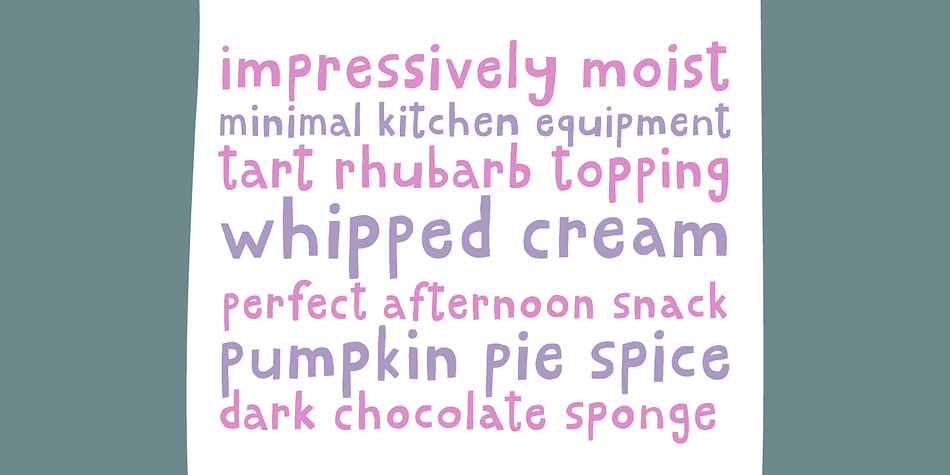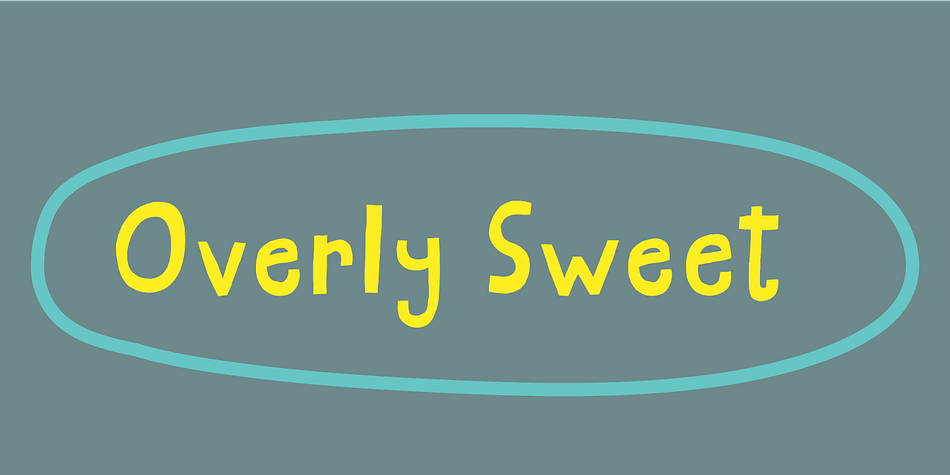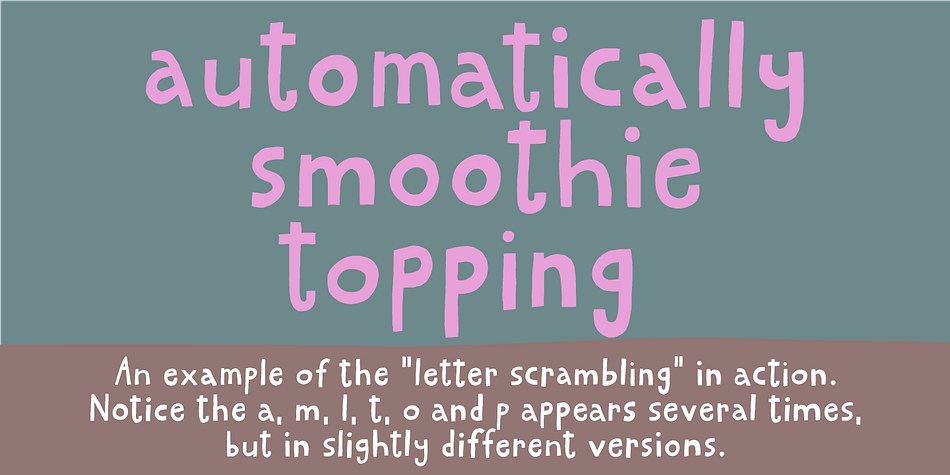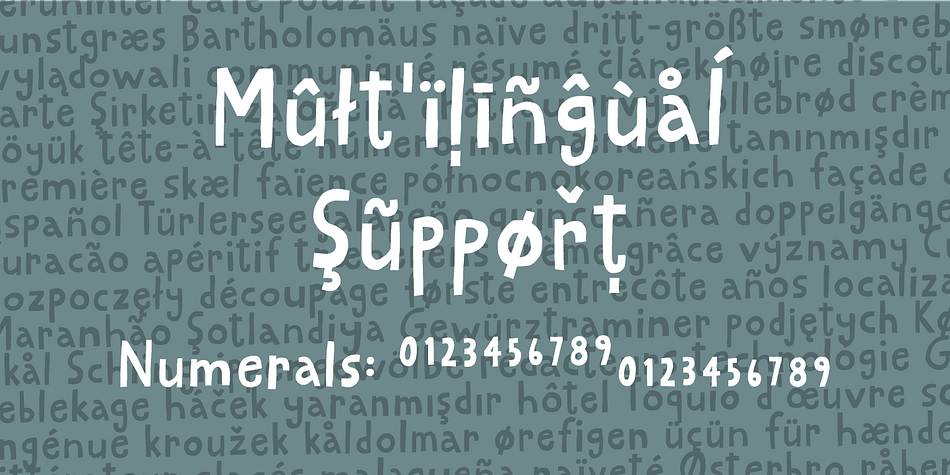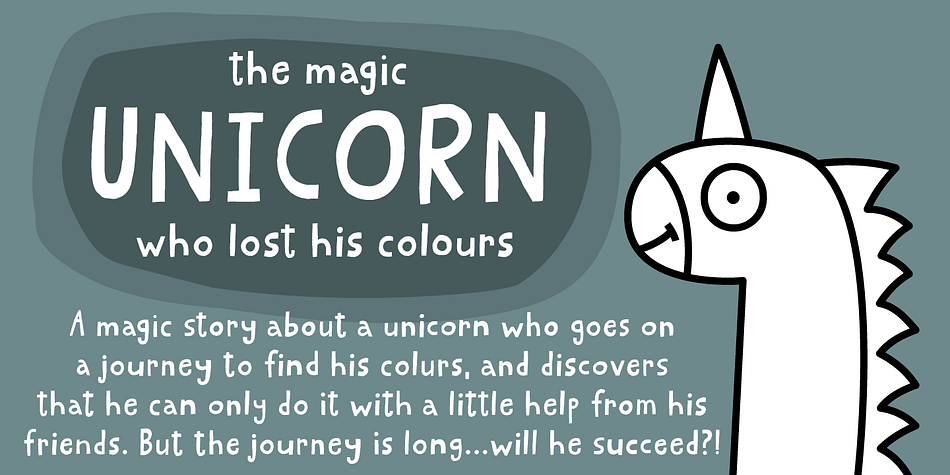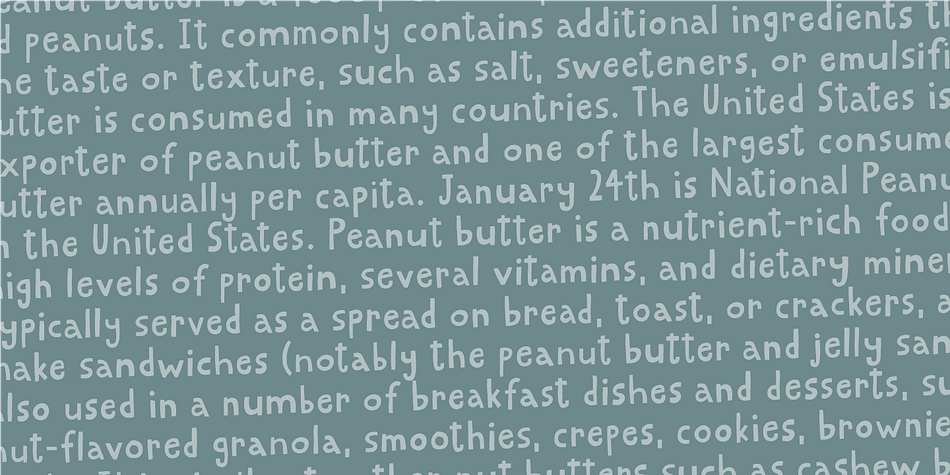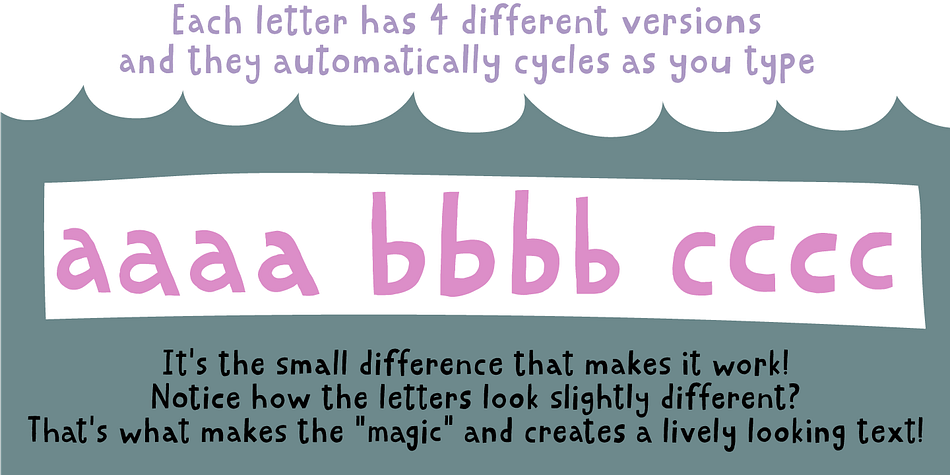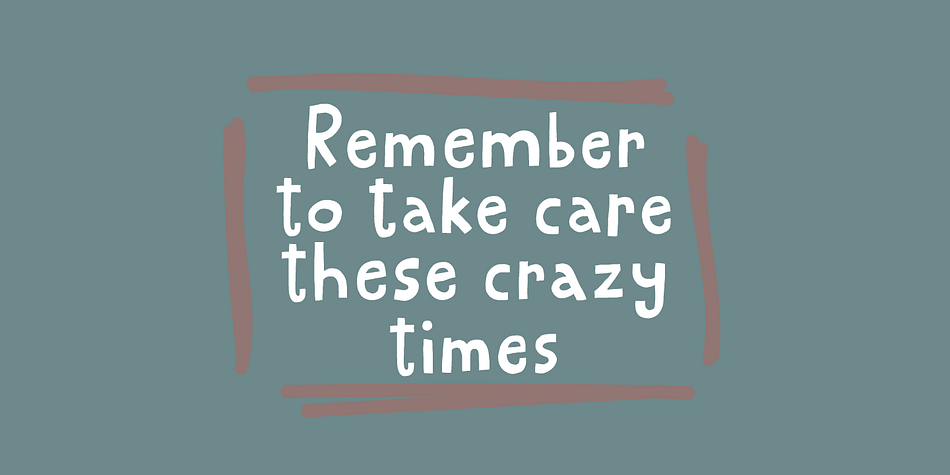
Overly Sweet
Designed by Jakob Fischer, Overly Sweet is a hand display and hand drawn font family. This typeface has two styles and was published by Bogstav.
Usually I prefer desserts that aren’t overly sweet, but a week ago I lost my sense of tasting - due to Corona, and when I wanted something sweet…I preferred it overly sweet…of course because I hardly could taste the overwhelming sweetness!
But now, I have my sense of tasting (and smelling!) back, and everything is back to normal. And since I completed this easy-recipe-inspired handmade font while suffering from Corona, I thought I’d name it Overly Sweet. And…well. because, the font is somewhat overly sweet (without being over the top sweet!)